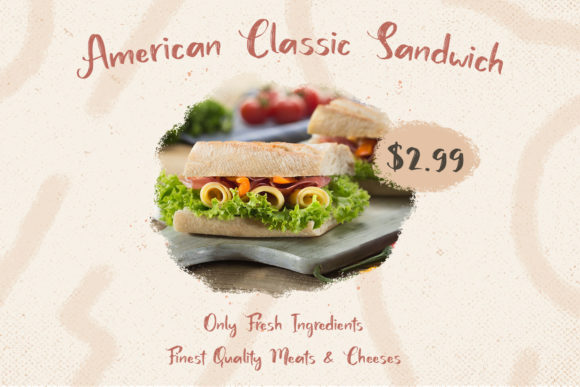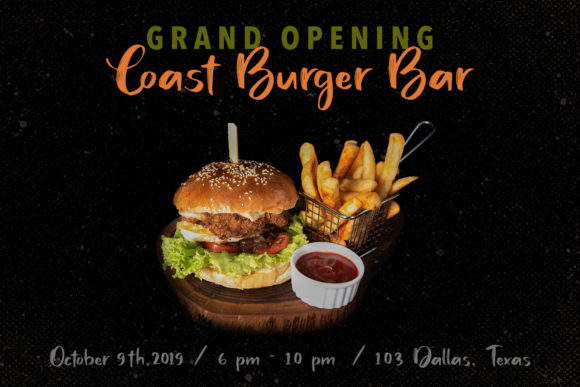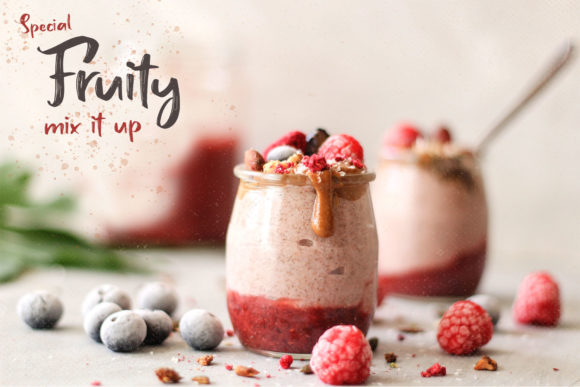
Introduction to Juicy Steak Font
The Juicy Steak is an amazing handwritten script.
It was based on the expressions of real handwriting and lets you transform type into an exciting and beautiful piece of work The irregular, hand-lettered look adds a real human touch to things and comes along with a lot of loving details.